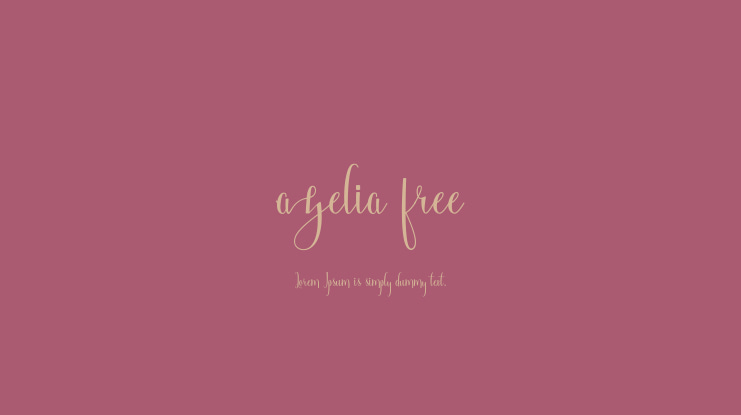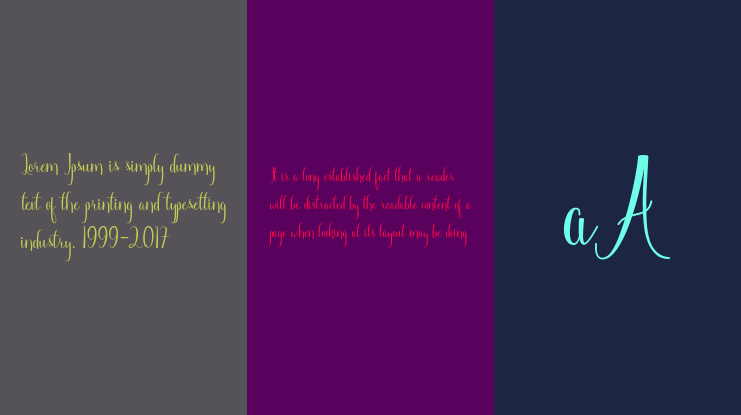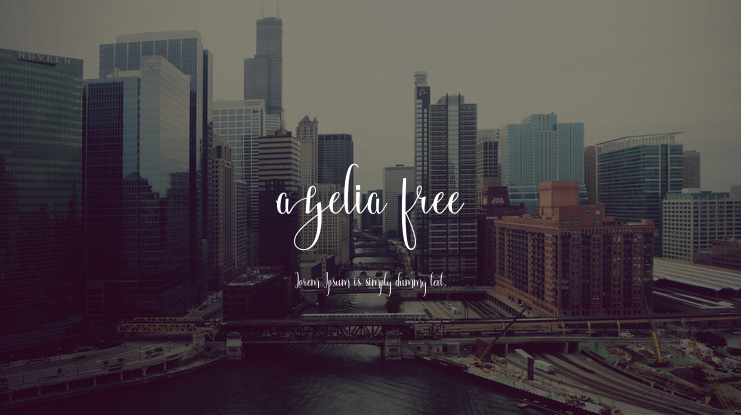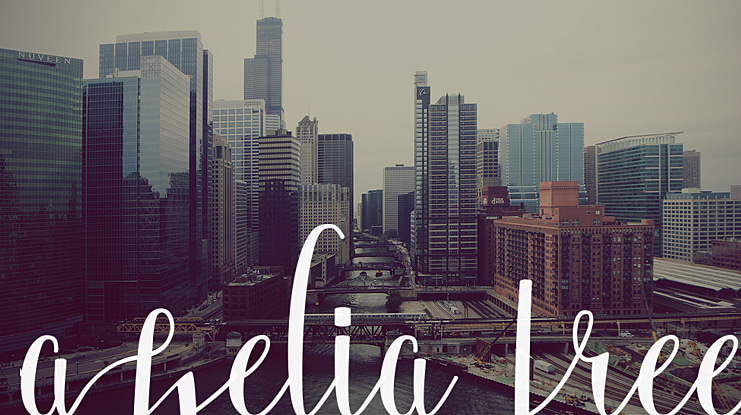
azelia free Font
Azelia is a script font that has the characteristic handwriting, it is very suitable to make certain label and event business and you could be using for a unique piece. Visit here to get full version